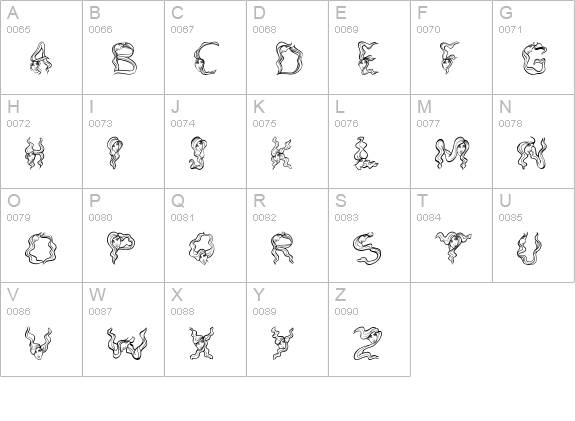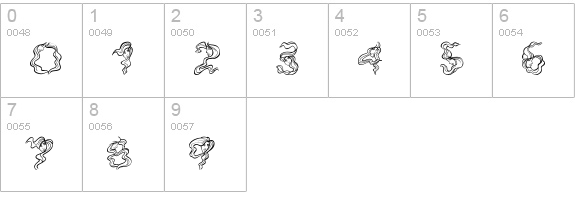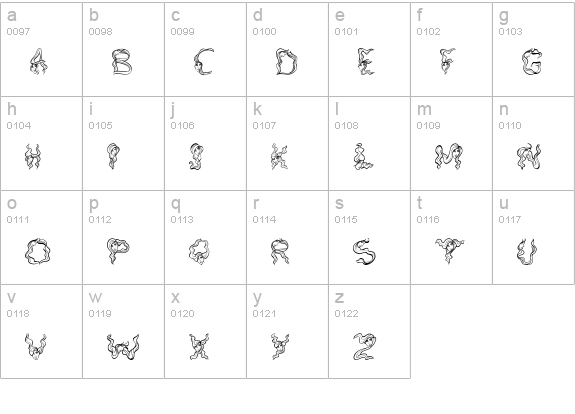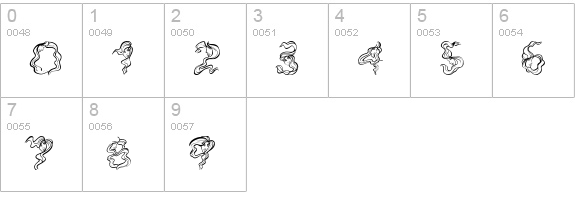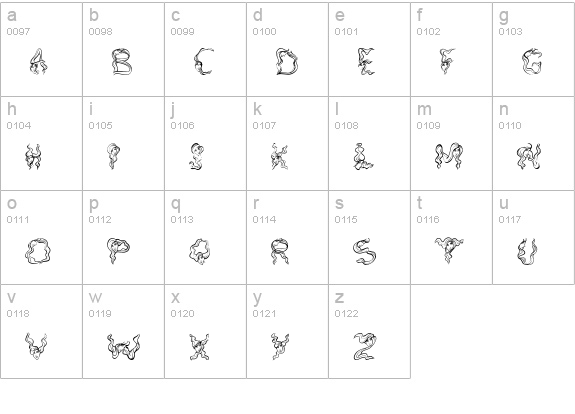
AlphaWomanHair Font Details
Introducing AlphaWomanHair font, a stunning and elegant typeface designed for strong, empowered women who exude confidence and style. This font features gracefully flowing lines and a touch of sophistication, making it perfect for a wide range of design projects. With AlphaWomanHair font, you can add a touch of feminine charm to your branding, wedding invitations, social media graphics, and more. Its versatility allows you to easily create eye-catching designs that stand out from the crowd. Best of all, AlphaWomanHair font is available for free download at FontsMarket.com, allowing you to access this exquisite typeface without any cost. Embrace your inner alpha woman and elevate your designs with the beauty and elegance of AlphaWomanHair font.